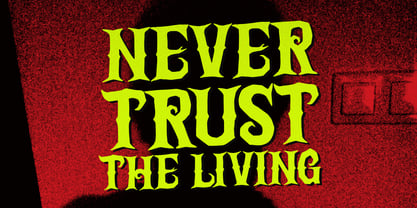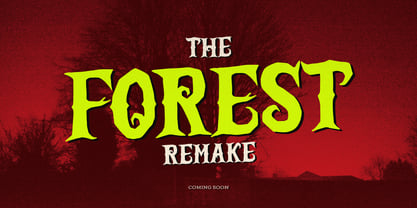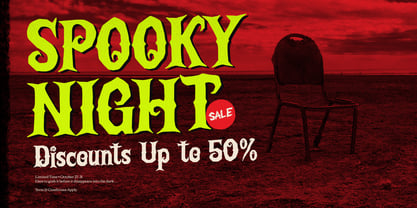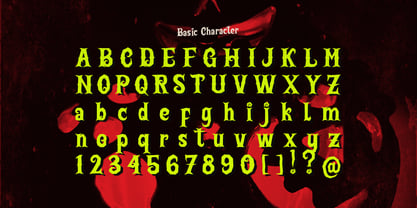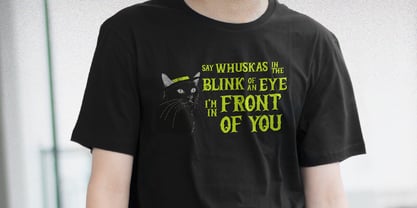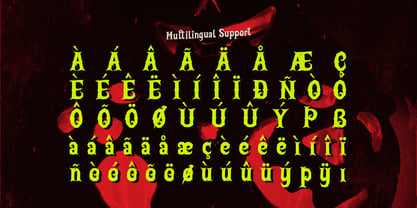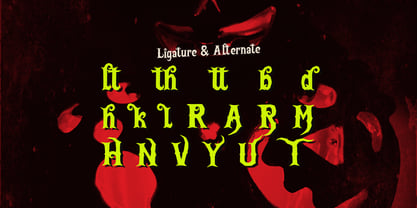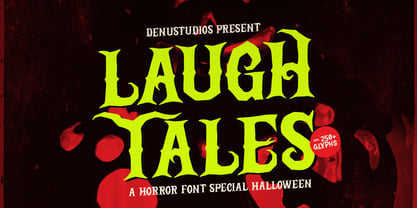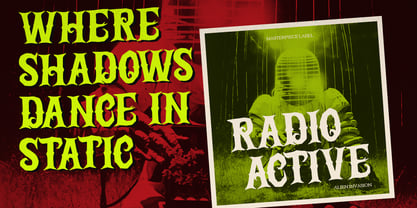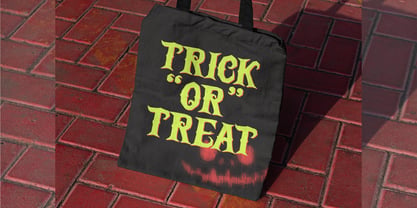
Laugh Tales
by Denustudio
The Laugh Tales Font Family was designed by Dede Nugraha and published by Denustudio. Laugh Tales contains 1 styles. More about this family
Laugh Tales | Horror Halloween Font, from Gracetypestudio, suitable for any projects such as: logos, branding projects, homeware designs, product packaging, mugs, quotes, posters, shopping bags, t-shirts, book covers, name card, invitation cards, greeting cards, label, photography, watermark, special events, and all your other lovely projects that need a Horror Halloween taste.